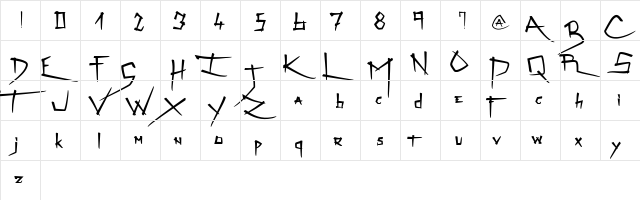
Zenzai Itachi Regular
| Foundry | M.K.V |
| Designer | M.K.V |
Design Context for Zenzai Itachi Typeface
Zenzai Itachi is a composed and adaptable typeface that performs quietly and consistently across a wide range of design contexts.